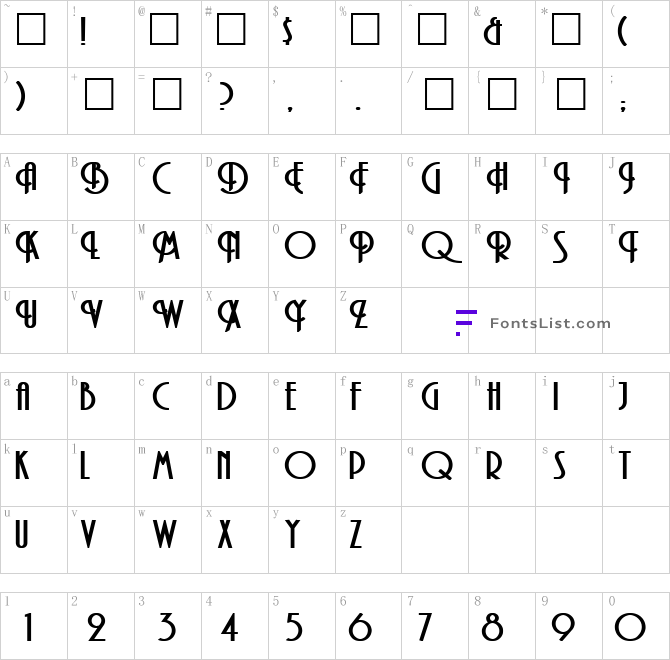
- Font Name:ALLENB
ALLENB-Regular.ttf is a very beautiful artistic font, ALLENB-Regular.ttf is widely used in the design and printing of various books and pictures,ALLENB-Regular.ttf has a strong visual impact,ALLENB-Regular.ttf is a commonly used font in newspapers, magazines and books, and is used in posters, e-commerce Poster design, store design, logo design, font design and other fields.ALLENB-Regular.